Boharat
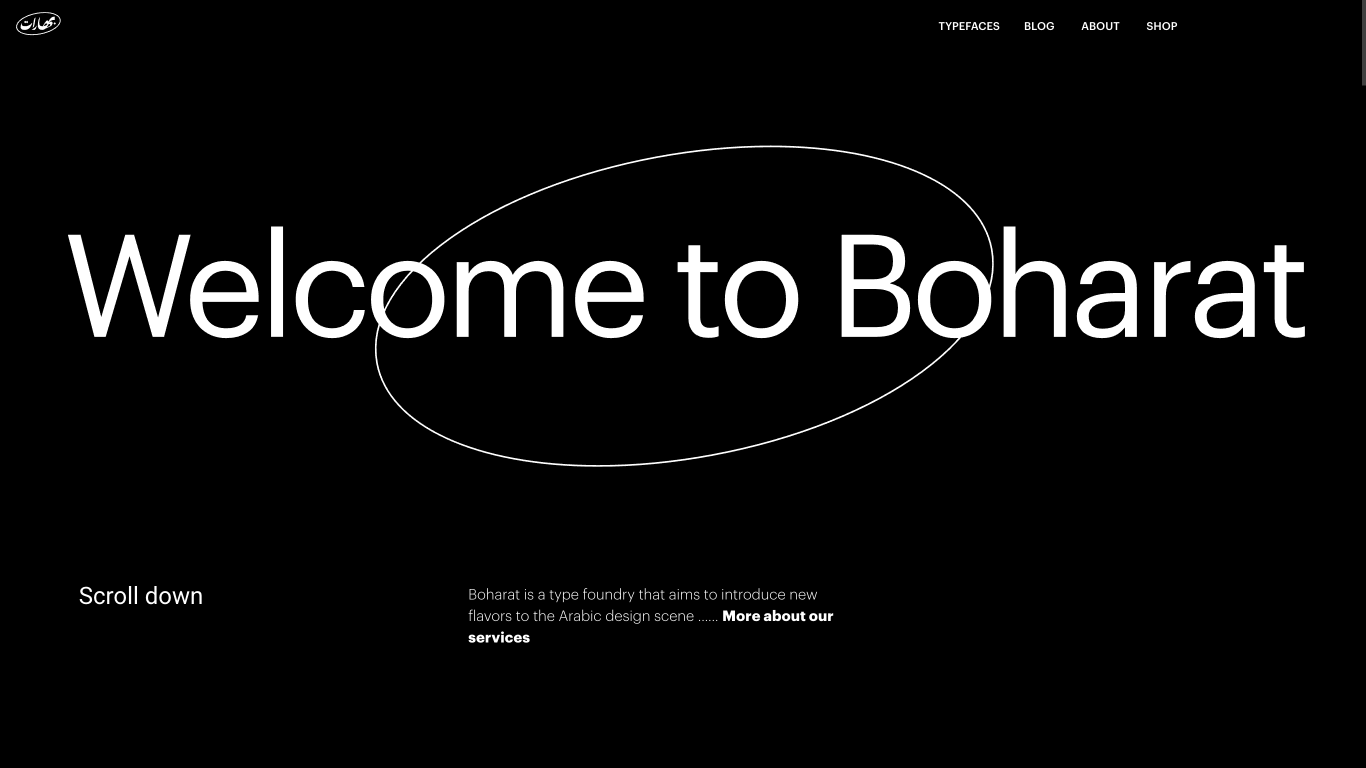
Boharat is an independent type foundry based in Cairo, Egypt, founded by self-taught lettering artist and type designer Abdo Mohamed. The foundry aims to introduce new flavors to the Arabic design scene by creating retail and custom typefaces that blend traditional Arabic calligraphy with contemporary design. Notable works include 'Felfel', inspired by 1920s Egyptian metal printing press publications and vintage Egyptian film posters, and a custom typeface developed for the Commercial International Bank (CIB), marking the first custom typeface for an Egyptian bank.